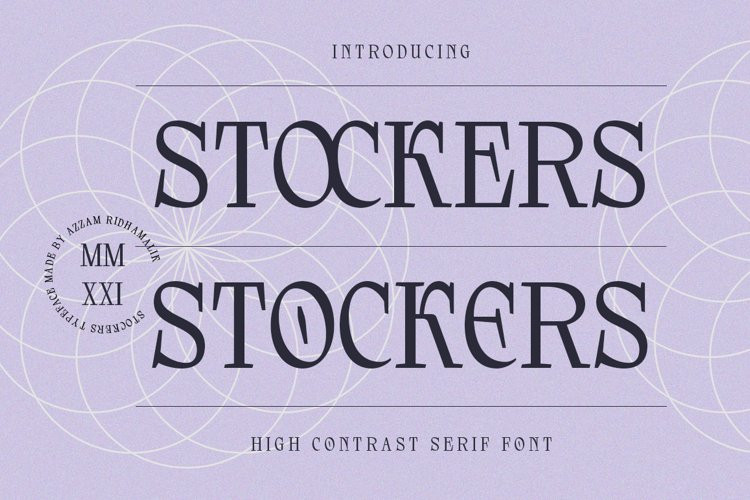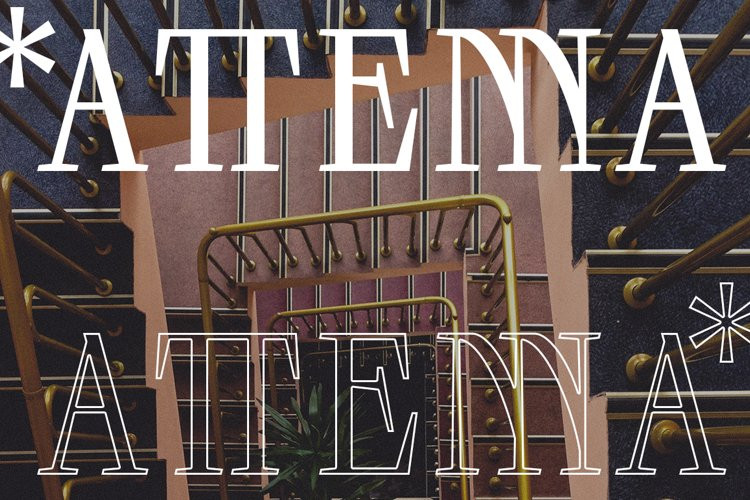
Stockers Font
Stockers FontStockers is a high contrast serif font. It’s long serifs make it looks mixed between classic and modern. Stockers support multilingual language, numbers, punctuation, alternative, standard and discretionary ligatures. A must have for any modern graphic designer as an elegant solution for your next magazine layout or any graphics design that require an elegant flair!